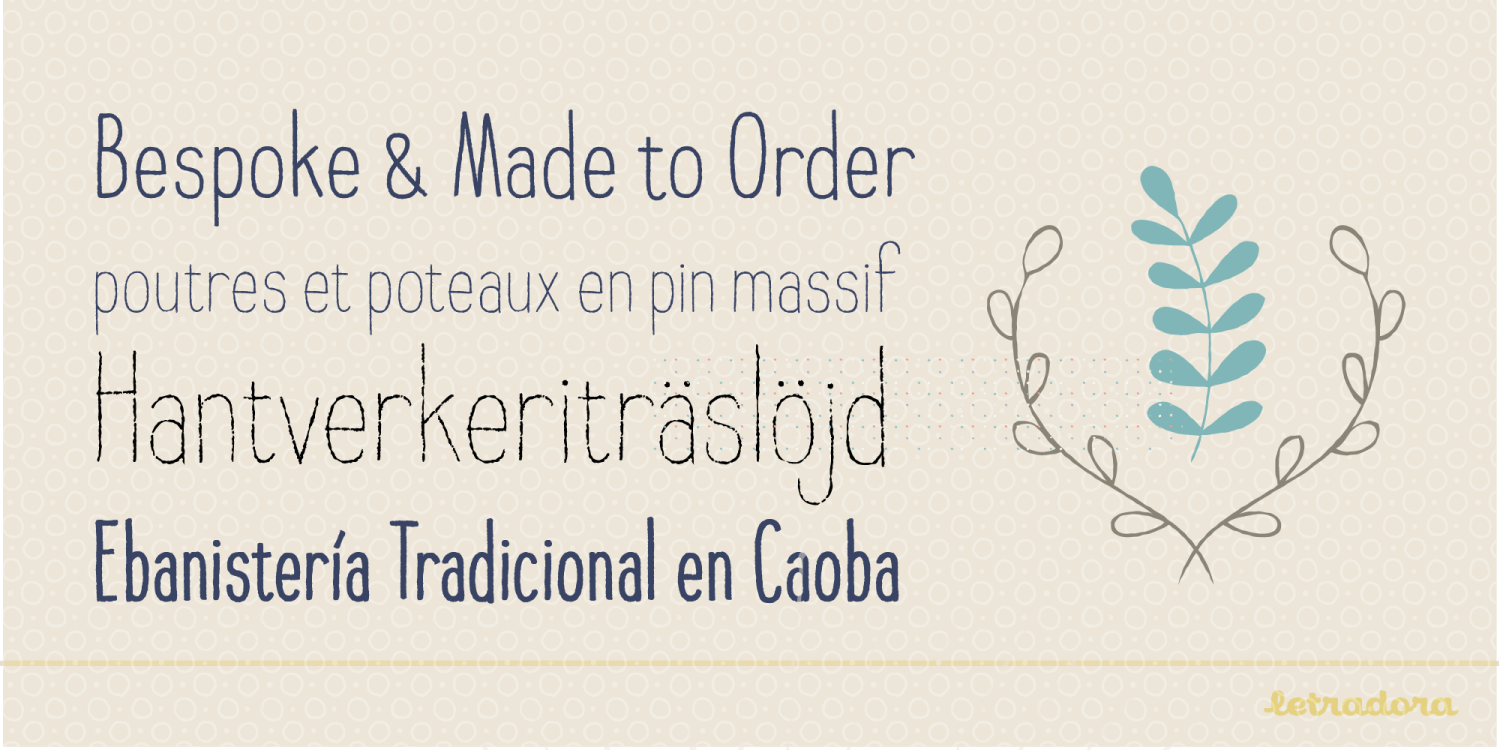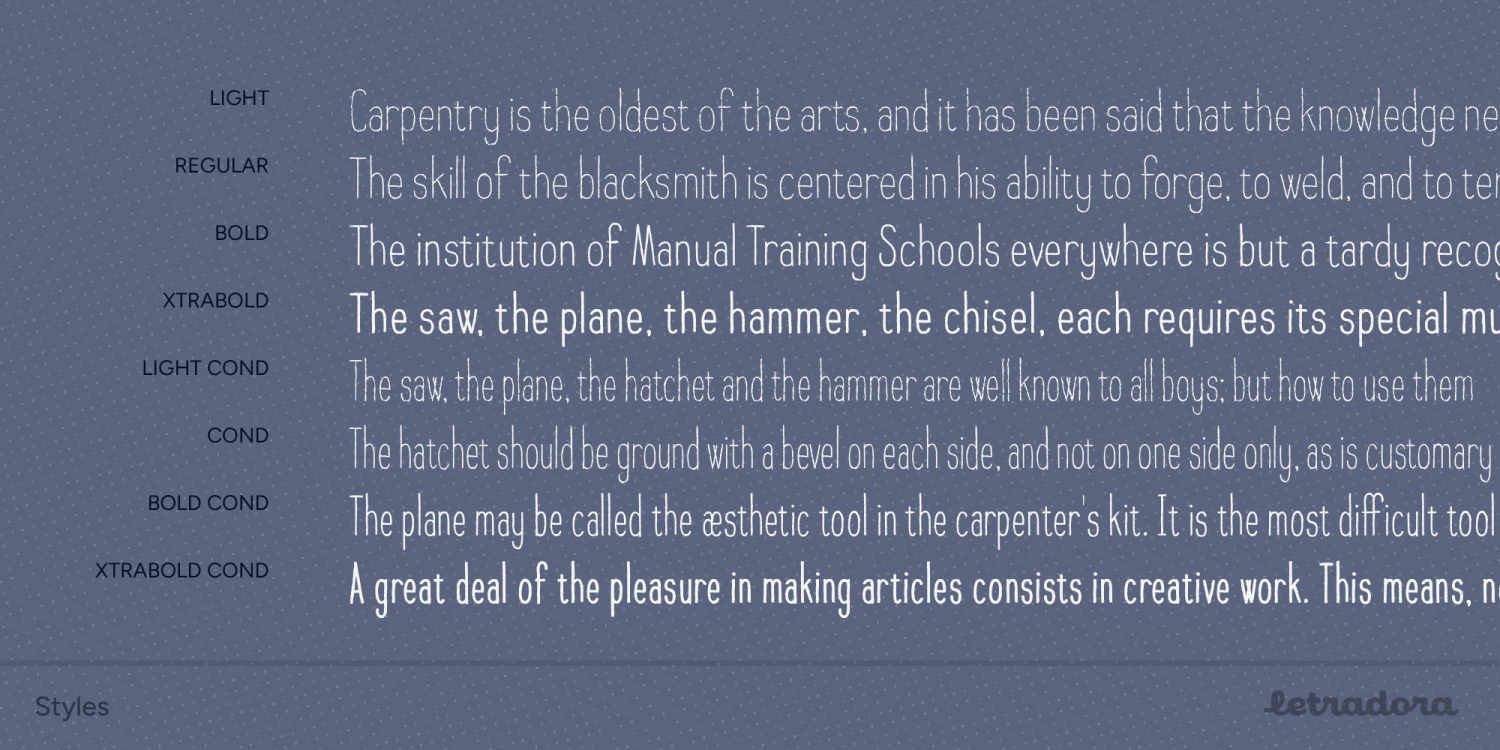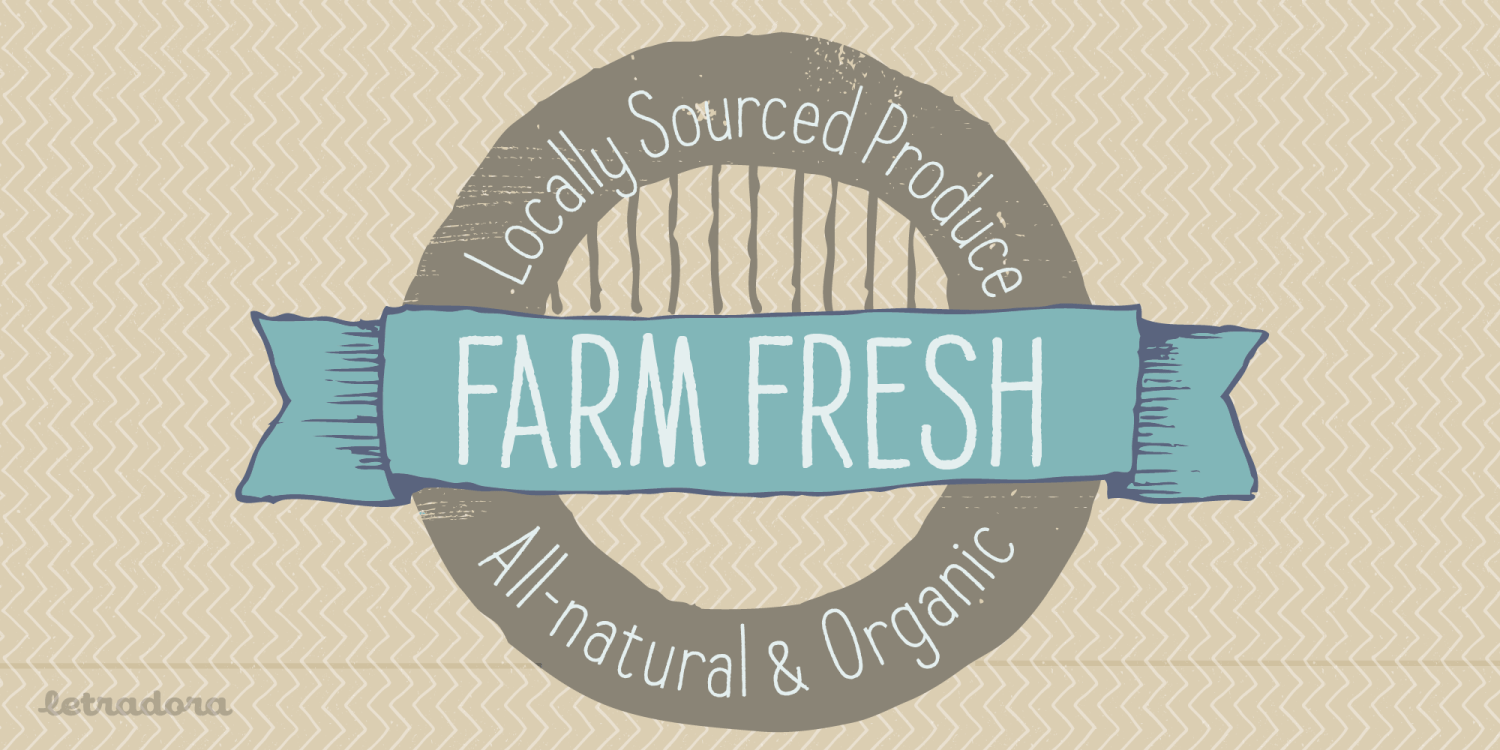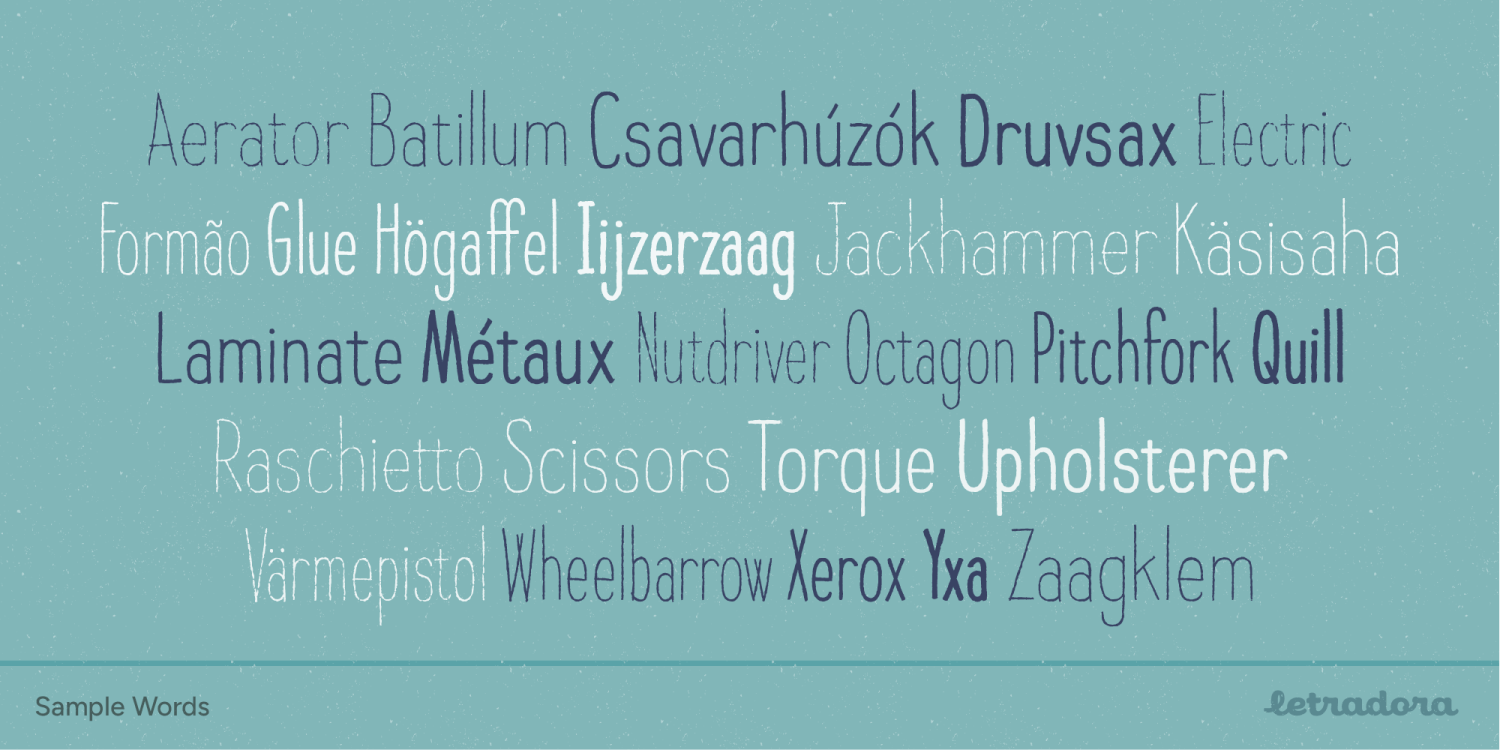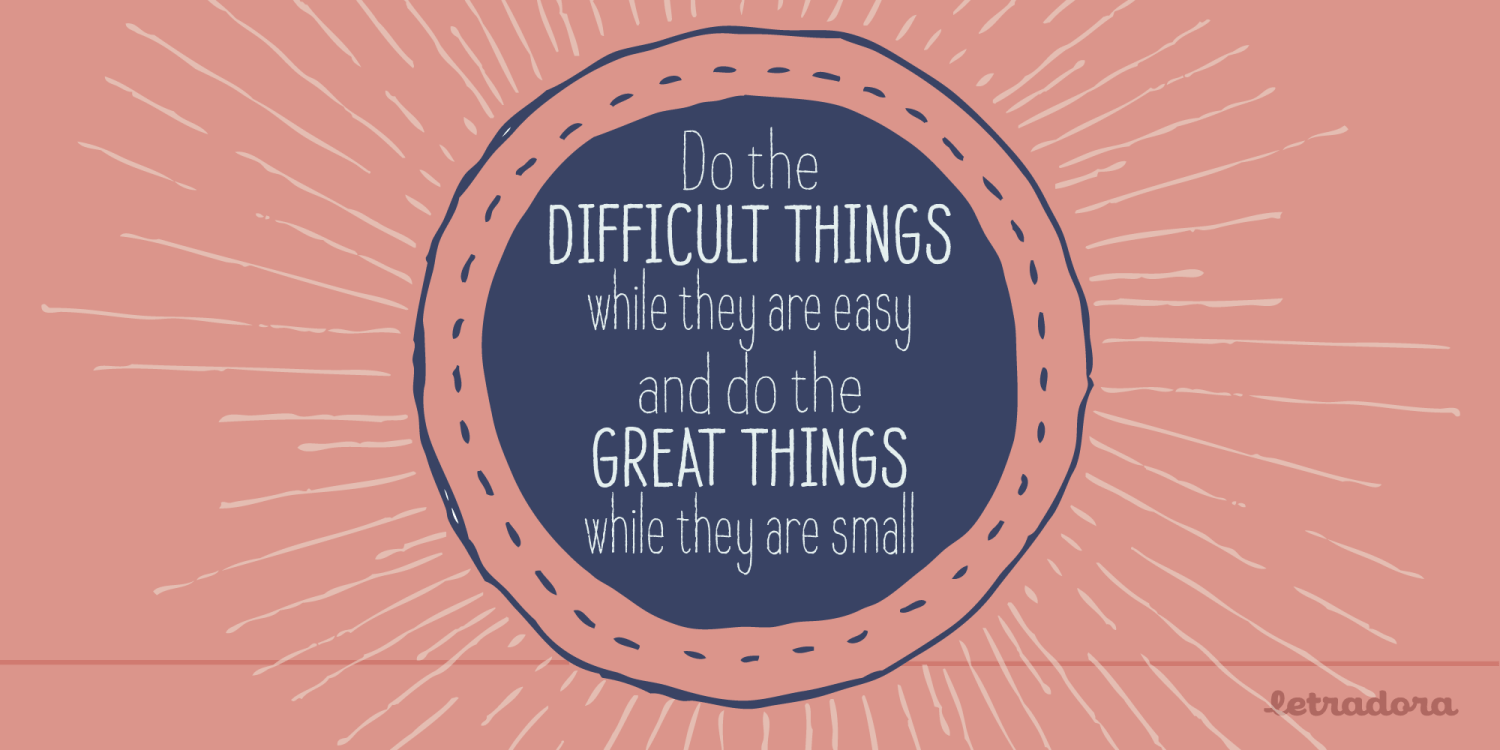
About Raski
Raski is a narrow hand drawn font with 3 weights and 2 widths. Its handmade look and natural texture make it perfect for giving designs an artisanal look, while still being very easy to read. The family, with 6 styles, has a very complete character set,…